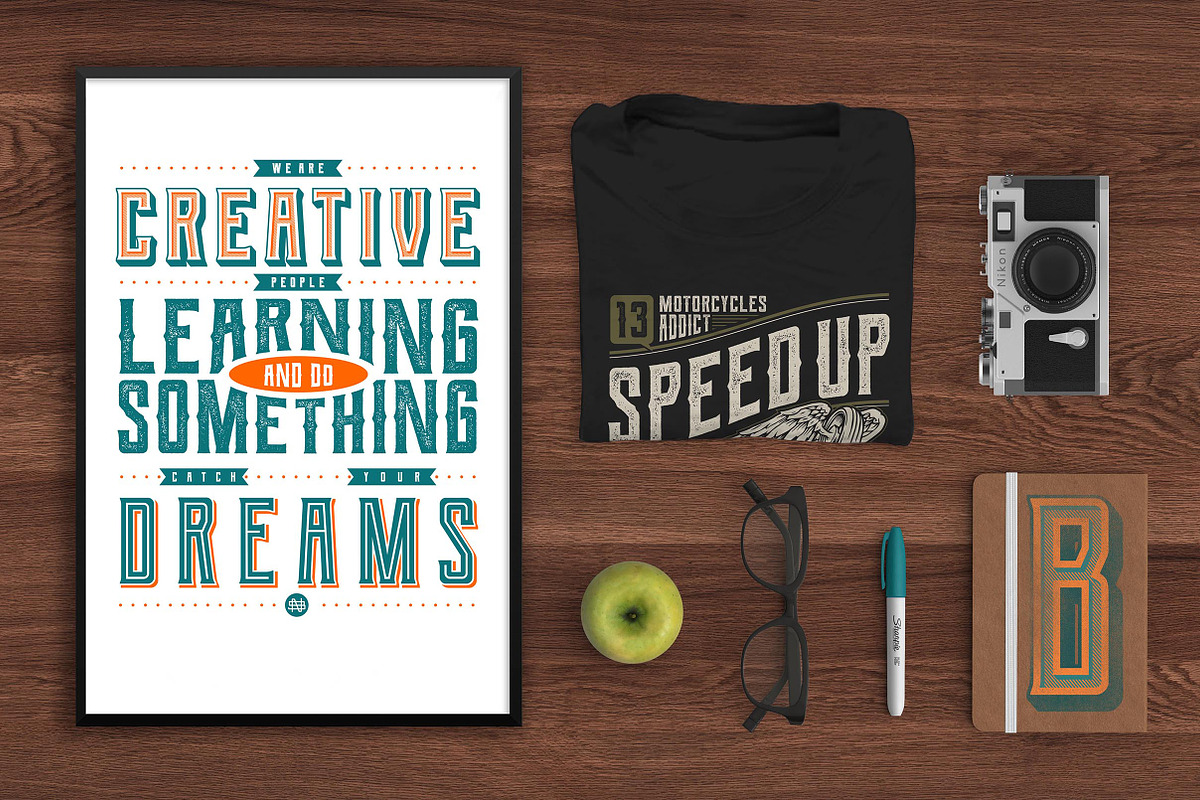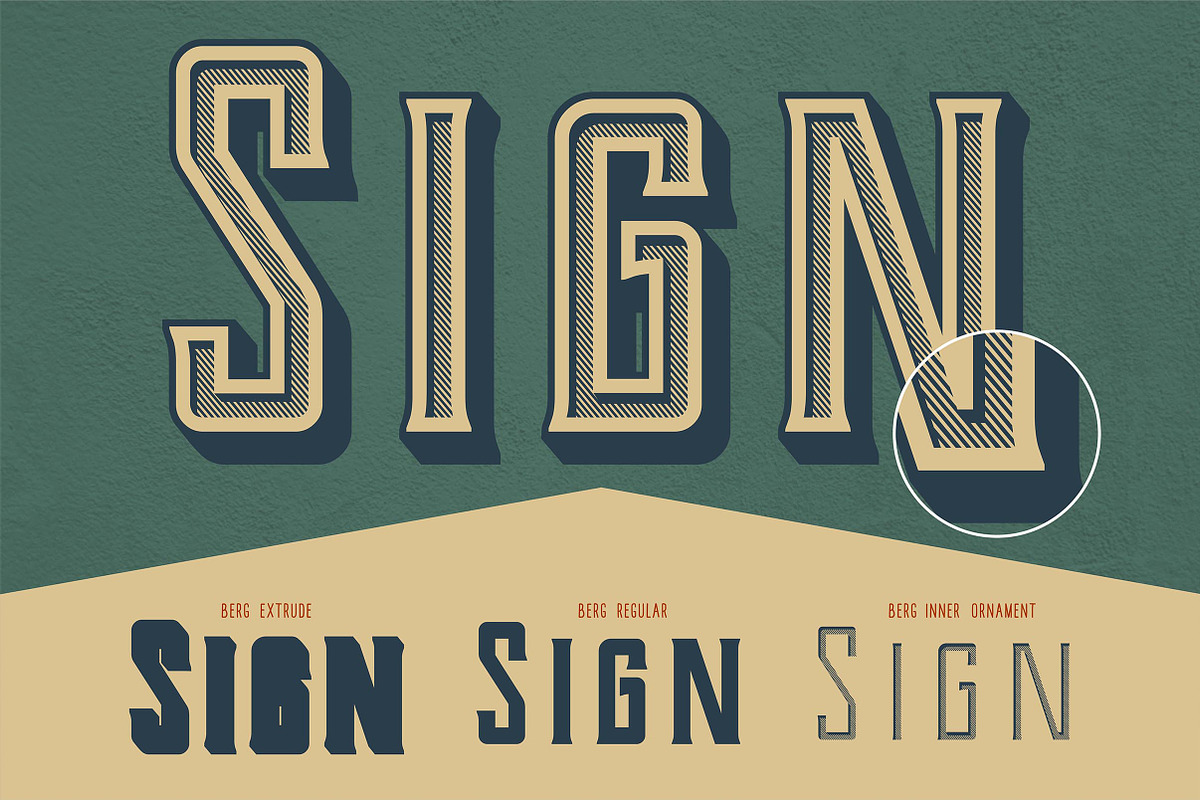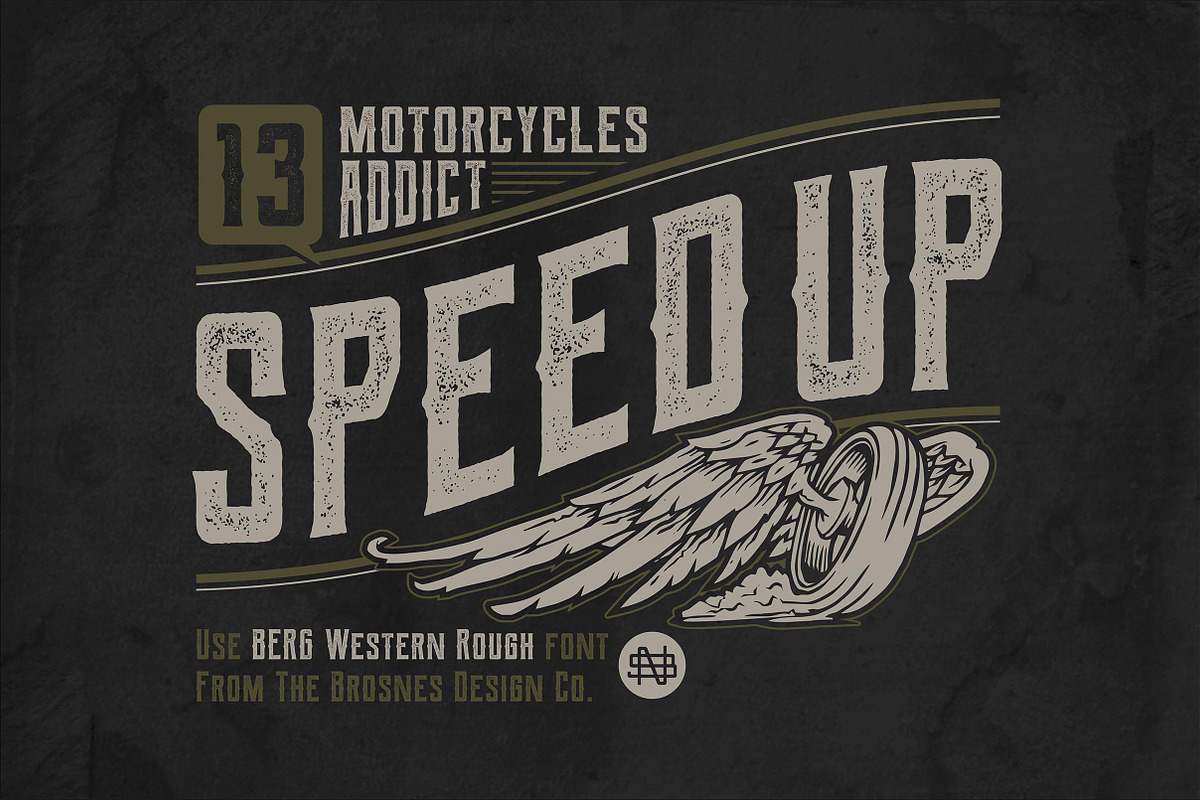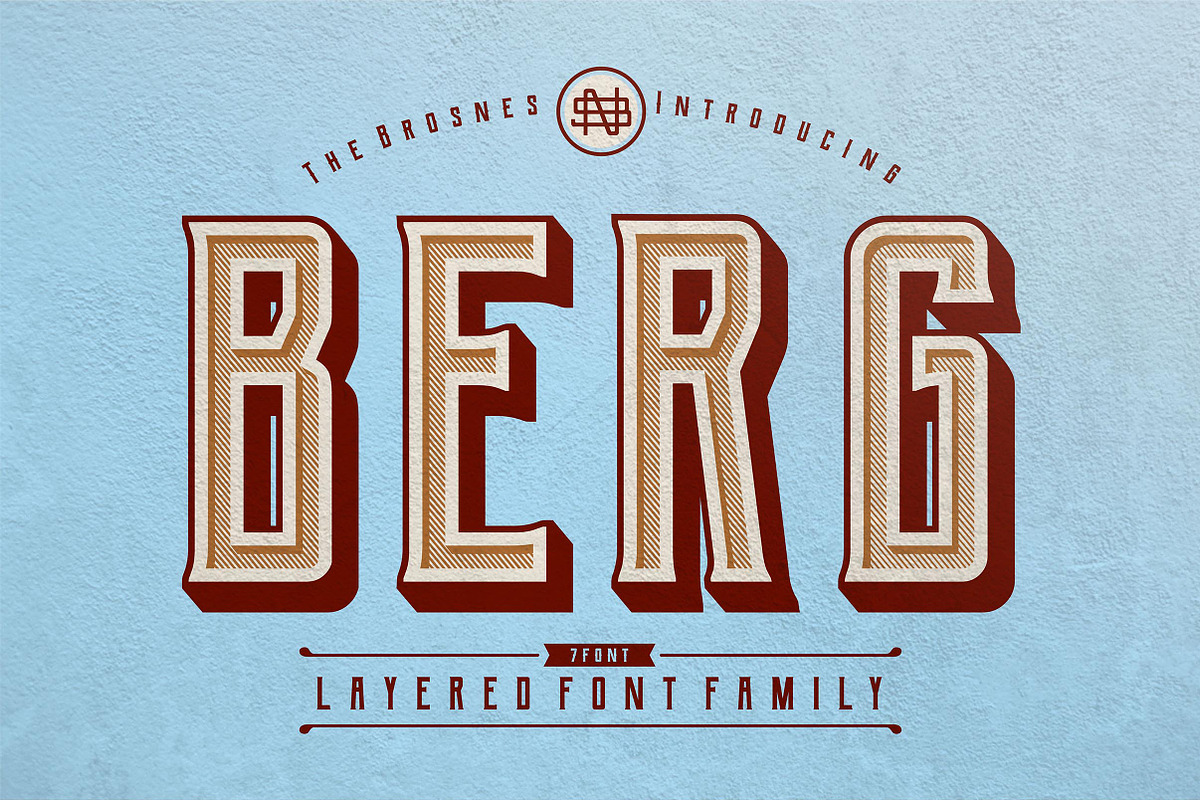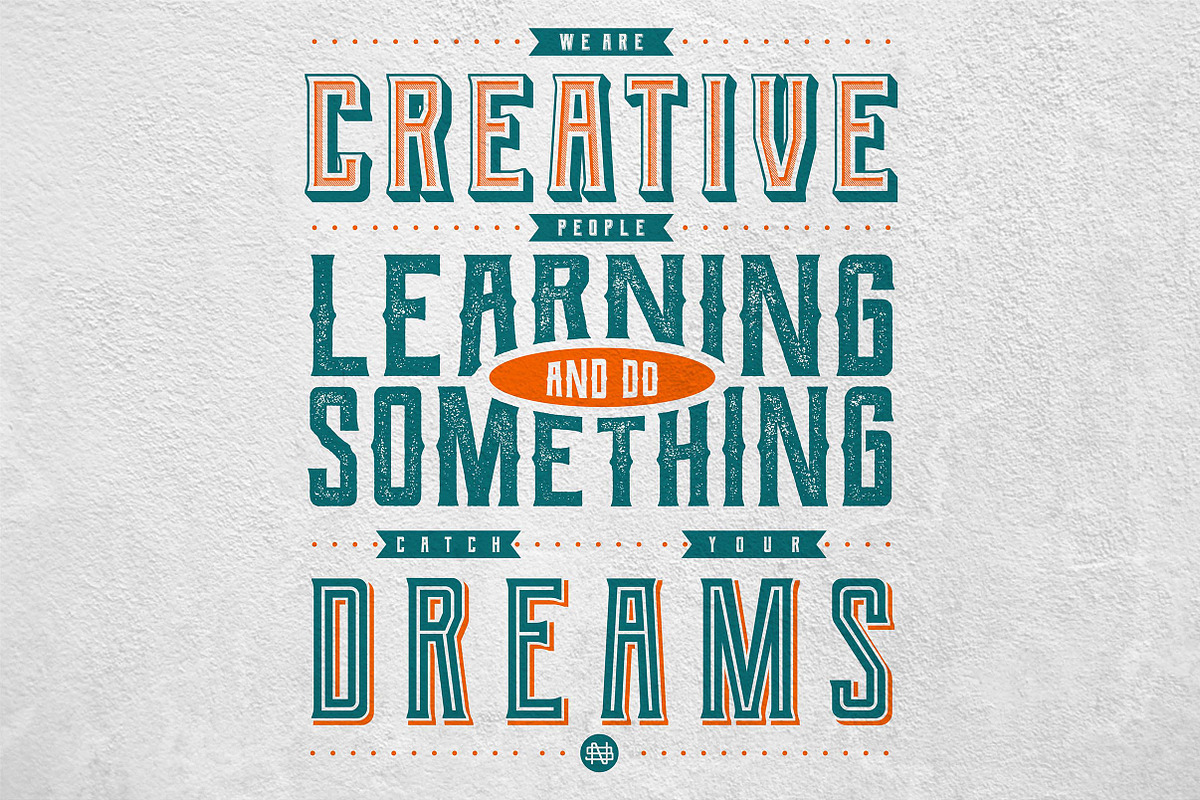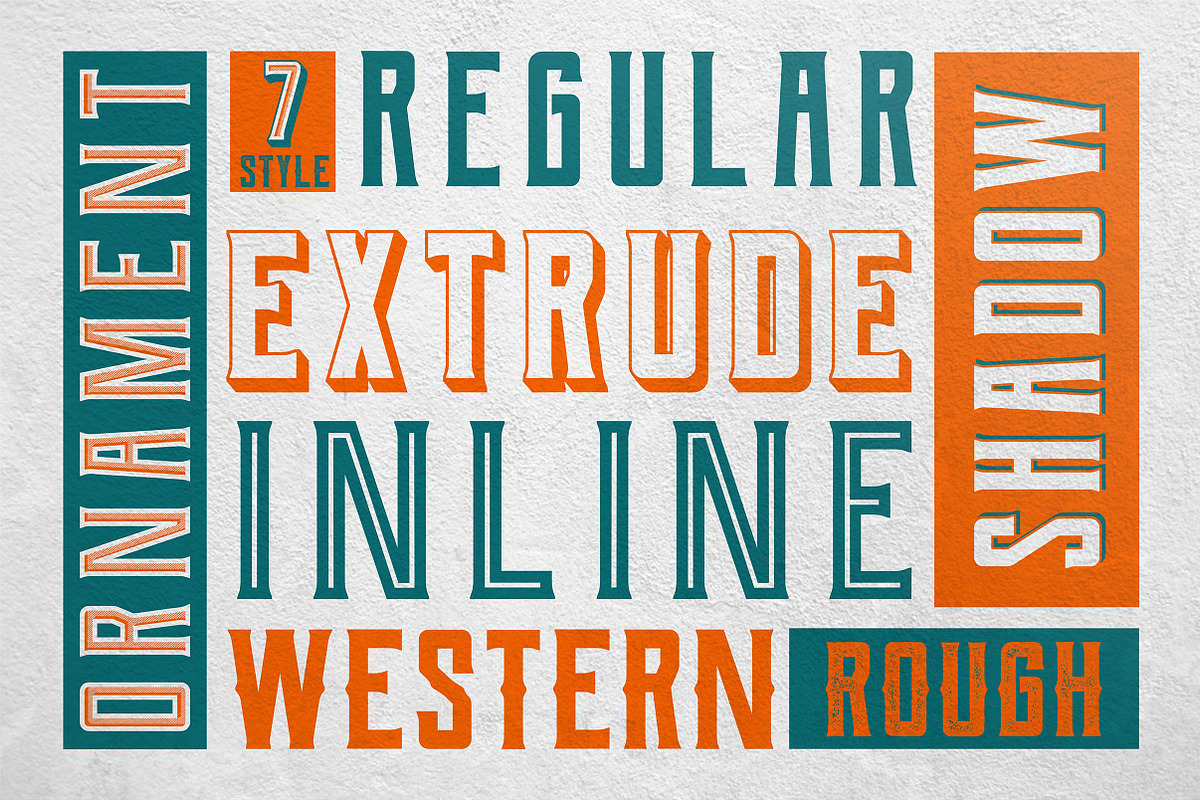
Berg layered font (7 Font)
Berg layered font (7 Font) by Brosnes is a font selected for branding, posters, packaging, typography.
- Berg comes with 7 font family (Regular, Extrude, Inline, Shadow, Ornament, Western & Rough) includes a full set of capital and lowercase let
- Character Set A-Z
Why Berg layered font (7 Font) is worth a look
Berg layered font (7 Font) by Brosnes fits naturally into Branding, posters, packaging, typography.